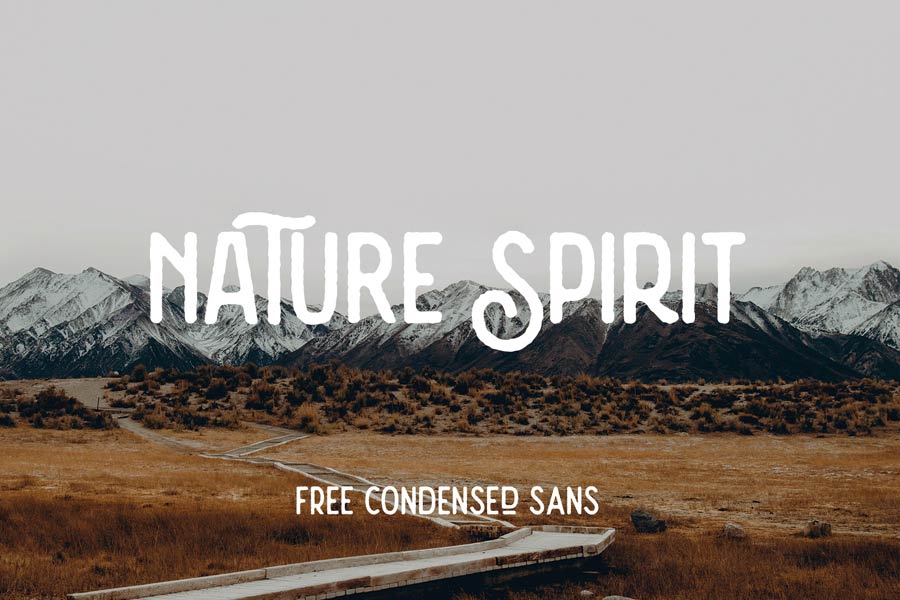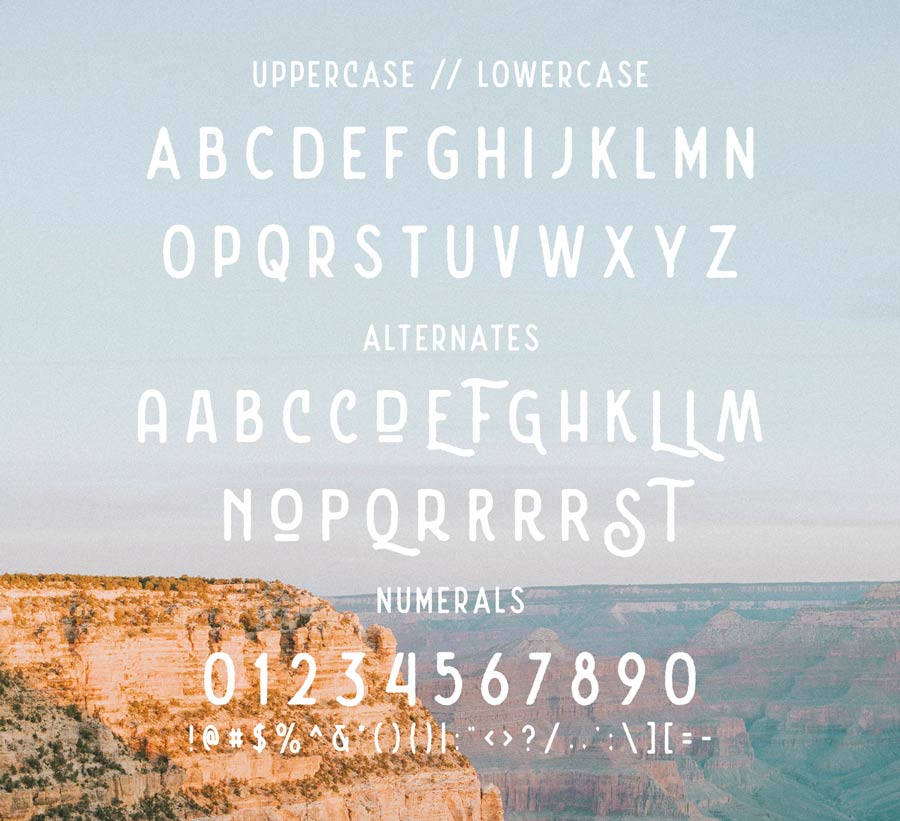
Nature Spirit is a vintage style display font face that comes with two styles. One is the regular clean style, and another one with rough finish. It comes with capital letters only but packs with handful of alternates to keep things interesting.